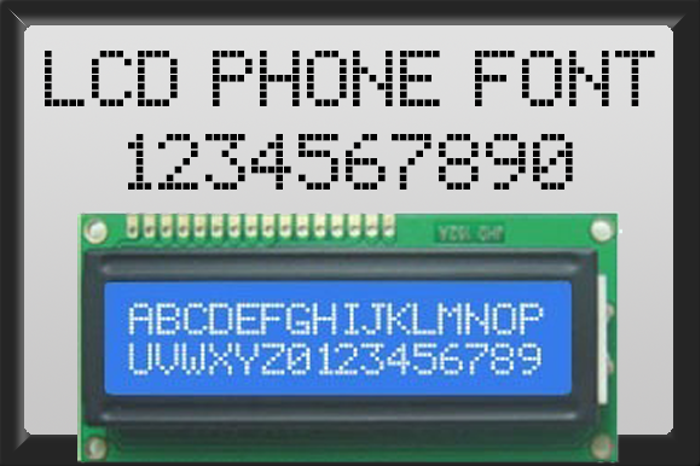
lcd phone Font
Esta fuente la copié de mi celular erickson en 2001
13 years agoDidn't see this one before making Erbos Draco O.o They're pretty similar... oops.
8 years agovery nice, but needs some more characters like colon and periods
i love this font(: